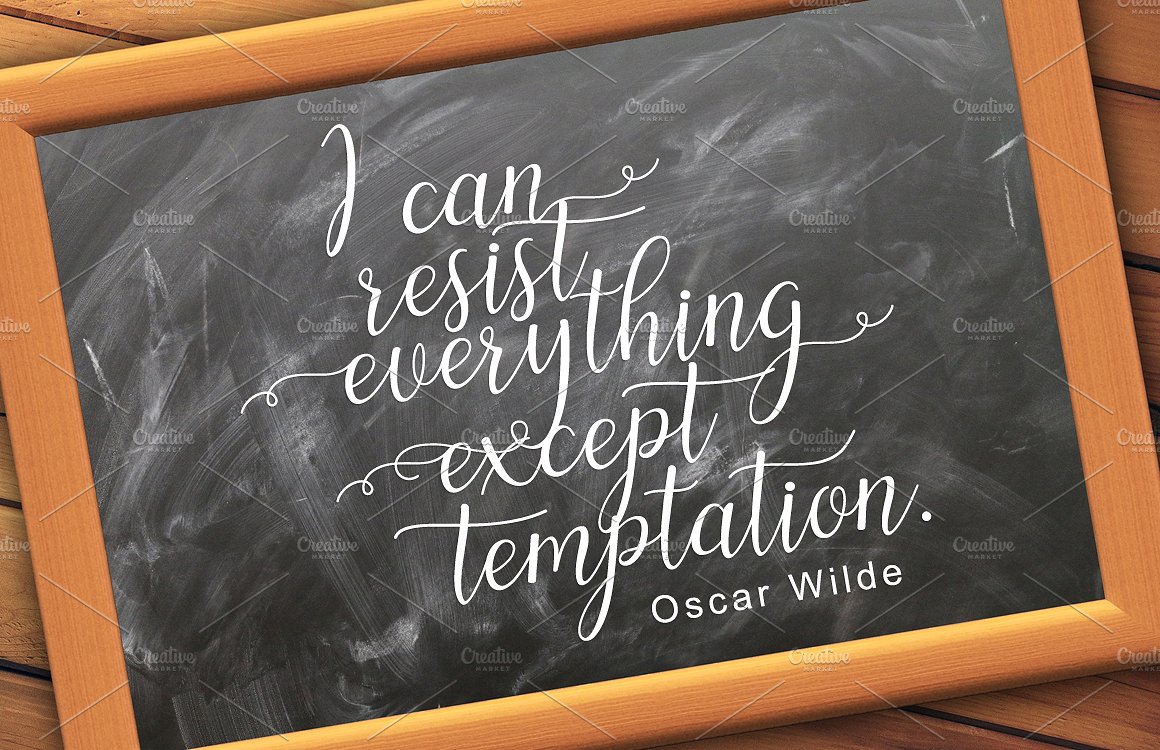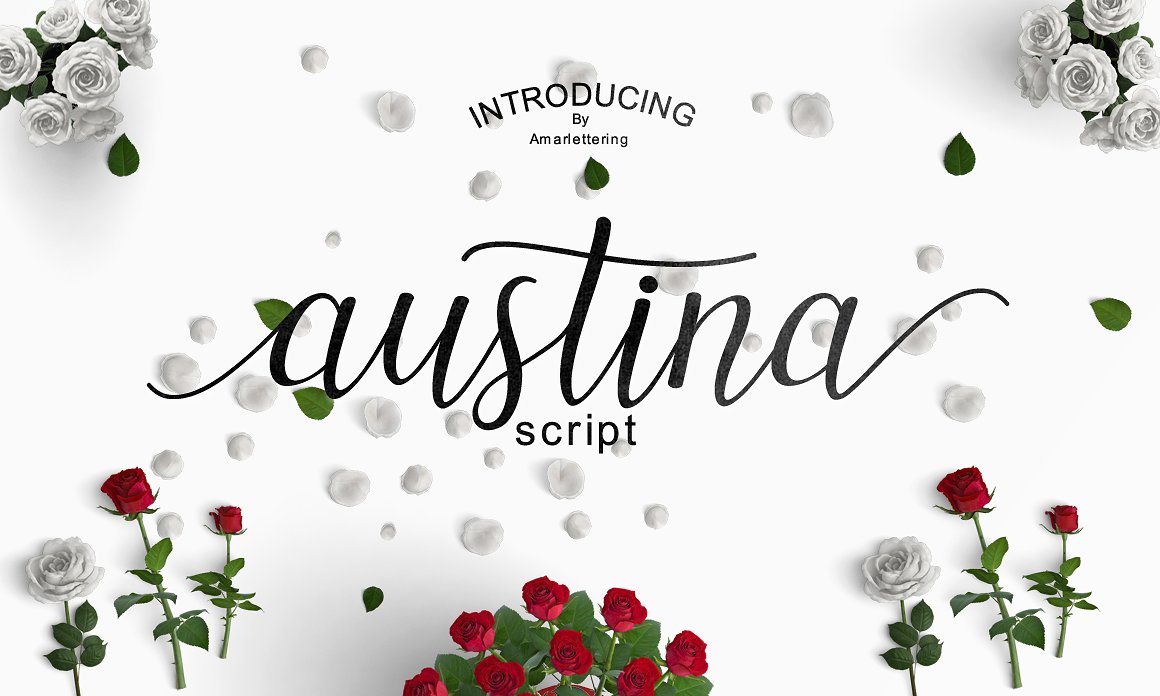
Austina Script
Austina Script Font
Austina script a new fresh & modern script with a handmade calligraphy style, decorative characters and a dancing baseline! So beautiful on invitation like greeting cards, branding materials, business cards, quotes, posters, and more!!